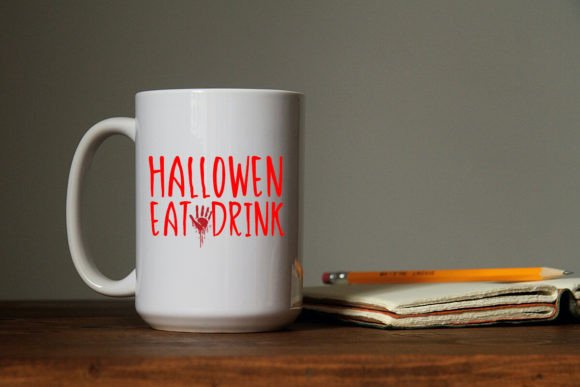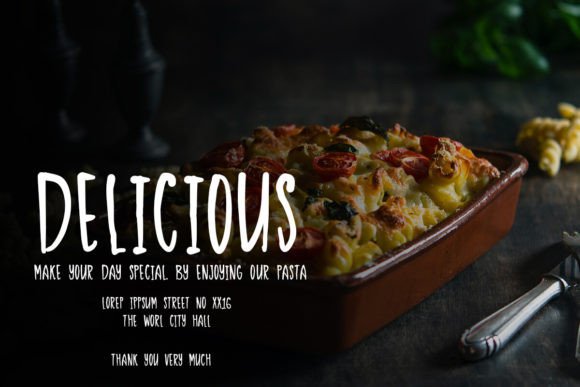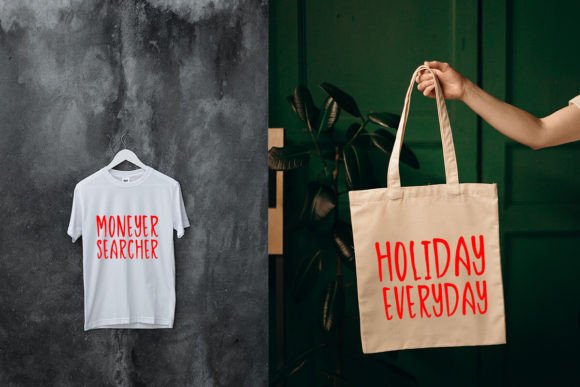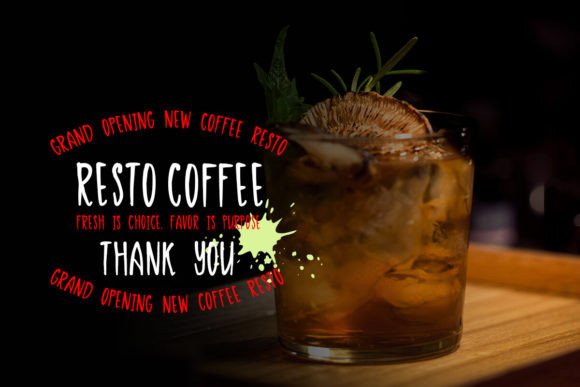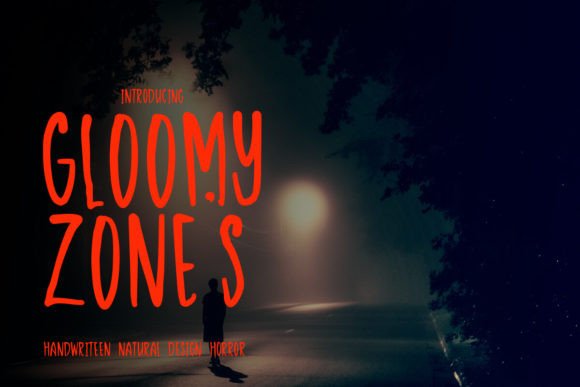
Gloomy Zones Font: The Sweet and Friendly Handwritten Font for Your Design Needs
Are you a designer or crafter looking for a unique and versatile font to elevate your creative projects? Look no further than Gloomy Zones Font! This sweet and friendly handwritten font is perfect for a wide range of designs, from digital art to craft projects, and its natural and unique style makes it incredibly fitting for various themes and styles.
What Makes Gloomy Zones Font So Special?
Gloomy Zones Font stands out from other fonts due to its distinct handwritten style, which exudes a sense of warmth and approachability. Its natural and unique characteristics make it perfect for designs that require a personal touch, such as:
- Digital art and illustrations
- Craft projects, like card making and scrapbooking
- Branding and packaging designs
- Web design and development projects
The Only Limit is Your Imagination!
One of the best things about Gloomy Zones Font is its versatility. With this font, you can create a wide range of designs, from simple and elegant to complex and playful. The only limit is your imagination! You can use it to:
- Create beautiful quotes and typography art
- Design eye-catching posters and flyers
- Develop a unique brand identity
- Make personalized gifts, like customized mugs and t-shirts
- Enhance your website or blog with custom graphics and typography
Key Features of Gloomy Zones Font
Here are some key features that make Gloomy Zones Font an excellent choice for designers and crafters:
- Handwritten style with a natural and unique feel
- Perfect for digital art, craft projects, and design projects
- Versatile and adaptable to various themes and styles
Tips for Using Gloomy Zones Font
To get the most out of Gloomy Zones Font, here are some tips to keep in mind:
- Pair Gloomy Zones Font with other fonts to create a unique and visually appealing combination
- Use it to create custom graphics and typography for your website or social media channels
- Don’t be afraid to get creative and try new things – the only limit is your imagination!
In conclusion, Gloomy Zones Font is a sweet and friendly handwritten font that is perfect for designers and crafters looking for a unique and versatile font to elevate their creative projects. Its natural and unique style makes it incredibly fitting for various themes and styles, and its adaptability and ease of use make it an excellent choice for a wide range of design needs. So why wait? Get creative with Gloomy Zones Font today and see what amazing designs you can come up with!